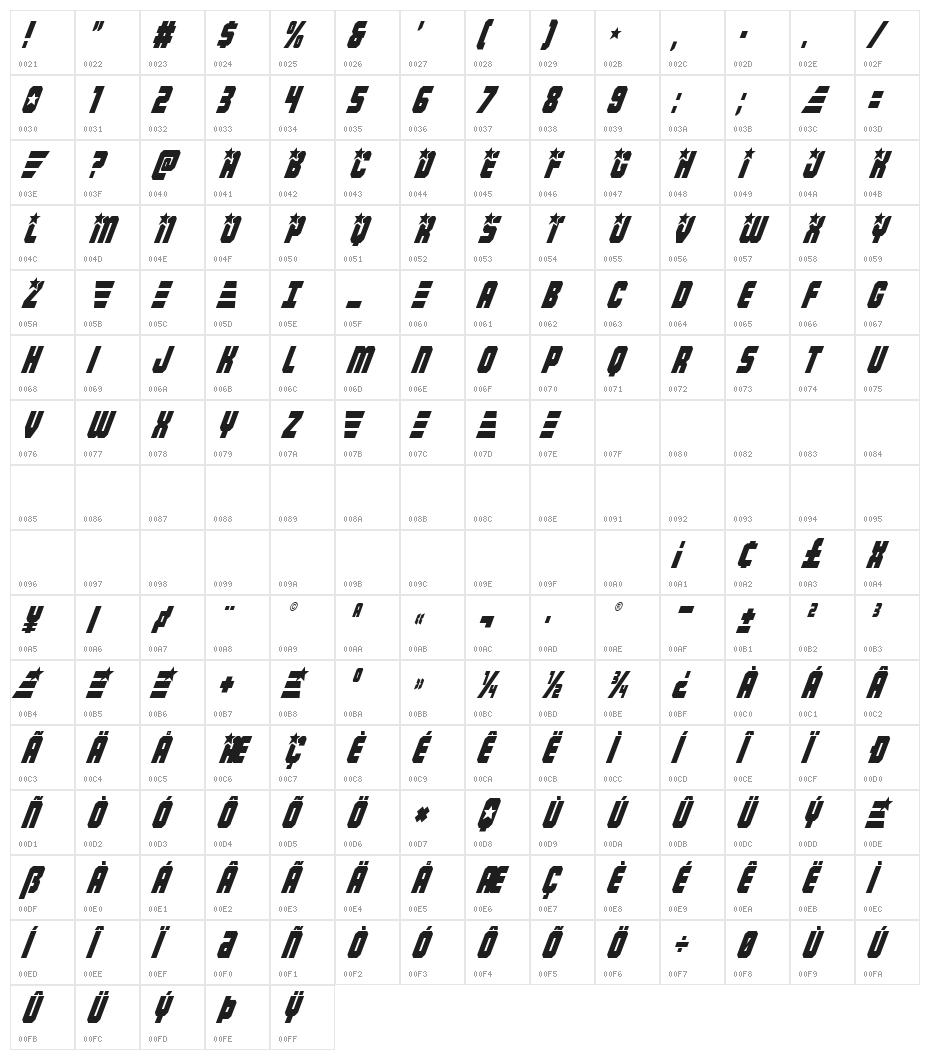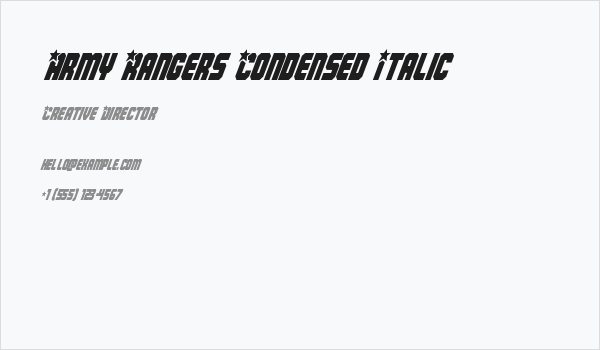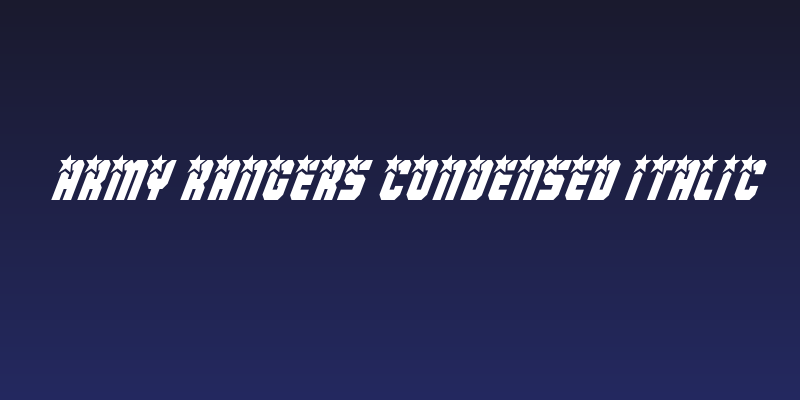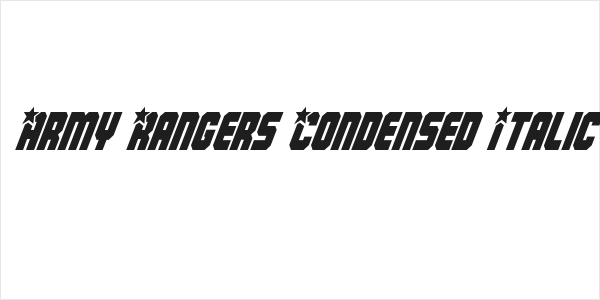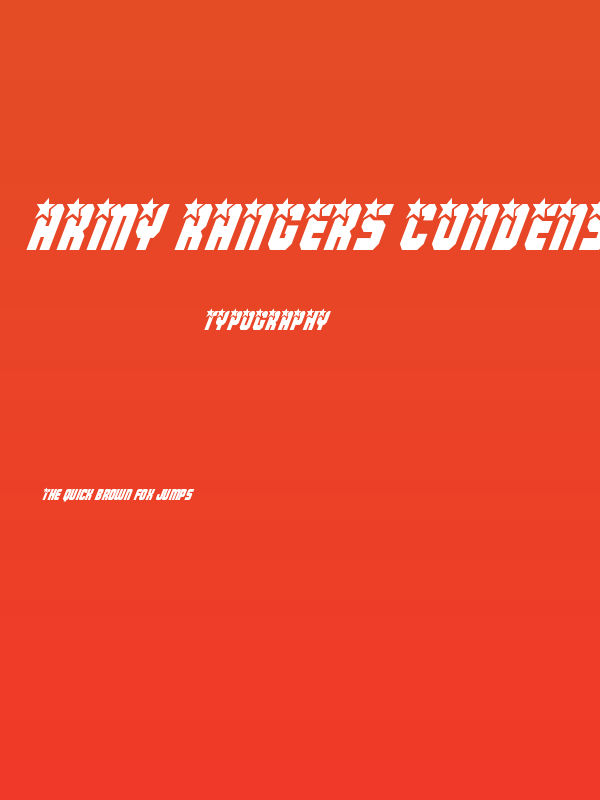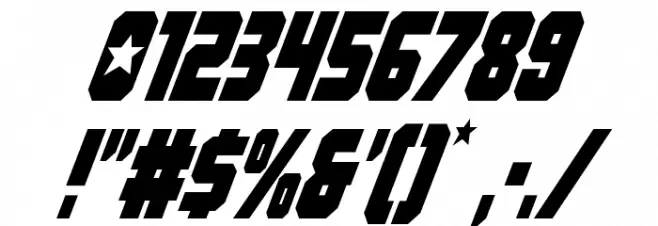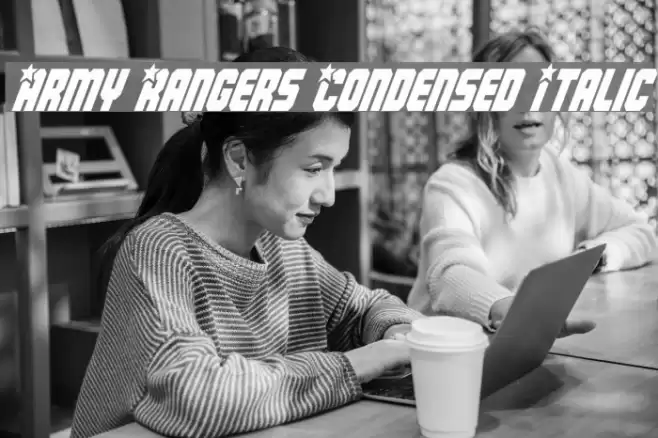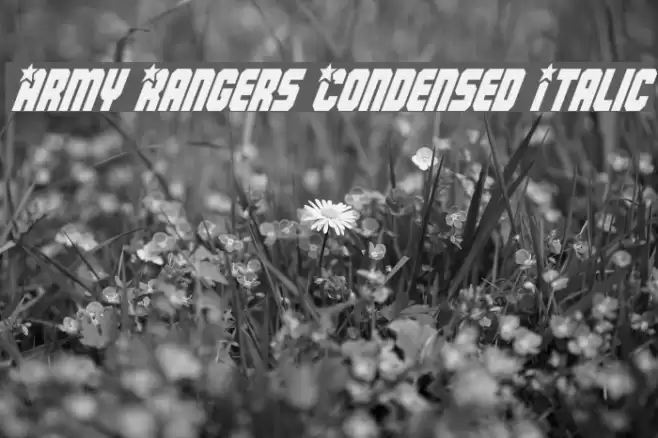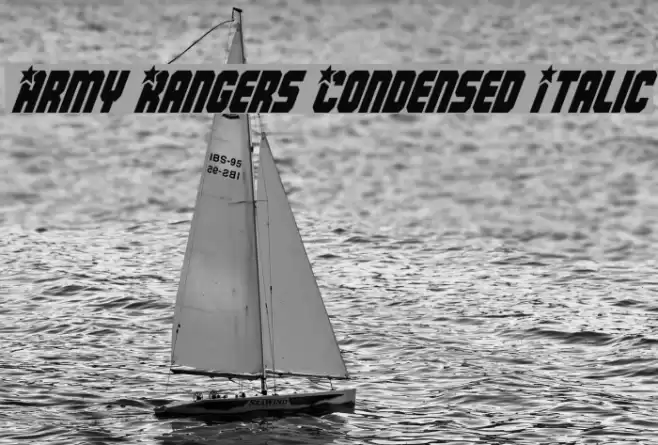
Army Rangers Condensed Italic Font
Army Rangers Condensed Italic Description
This font features a bold, condensed style with a distinct italic slant, giving it a dynamic and energetic appearance. The uppercase letters are adorned with star motifs, adding a decorative and military-inspired touch. The characters are tightly spaced, enhancing the compact and impactful look. The font's strong geometric shapes and sharp angles convey a sense of strength and authority. It is well-suited for projects that require a bold statement, such as posters, banners, and branding materials. The numbers and special characters maintain the same bold and condensed style, ensuring consistency across all text elements.
| Proposed Projects | Ideal for military-themed designs, sports branding, posters, and impactful headlines. |